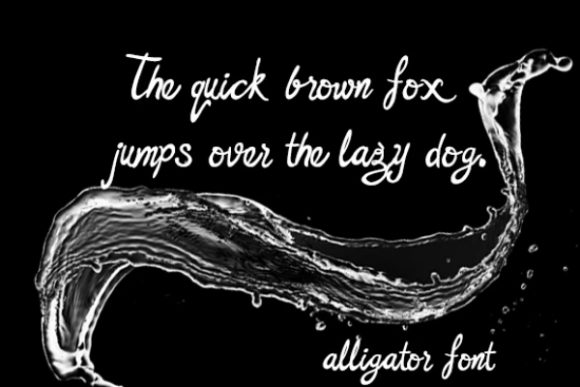
Introducing Alligator Font: The Cute and Modern Handwritten Font for Creative Projects
Are you a designer, crafter, or DIY enthusiast looking for a font that can add a touch of personality and friendliness to your creative projects? Look no further than Alligator Font! This modern handwritten font is designed to bring a sense of approachability and warmth to your designs, making it perfect for a wide range of applications, from social media graphics to calligraphy scripts.
The Features of Alligator Font
Alligator Font is a beautifully crafted font that boasts an incredibly friendly feel. Its gorgeous swashes and ligatures make it incredibly versatile, allowing you to use it for a variety of creative projects. Whether you’re looking to create stunning Instagram graphics, elegant calligraphy scripts, or eye-catching DIY projects, Alligator Font is the perfect choice.
One of the standout features of Alligator Font is its gorgeous swashes. These elegant flourishes add a touch of sophistication and elegance to your designs, making them perfect for projects that require a bit of extra flair. Additionally, the font features a range of ligatures, which allow you to create beautiful connections between letters and add a touch of whimsy to your designs.
What Makes Alligator Font So Versatile?
Alligator Font is an incredibly versatile font that can be used for a wide range of creative projects. Its modern and handwritten feel makes it perfect for:
- Social media graphics: Add a touch of personality to your Instagram graphics, Facebook posts, and Twitter updates with Alligator Font.
- Calligraphy scripts: Create beautiful calligraphy scripts for DIY projects, such as wedding invitations, greeting cards, and gift tags.
- DIY projects: Use Alligator Font to add a personal touch to your DIY projects, such as crafts, scrapbooking, and paper crafting.
- Branding and marketing: Use Alligator Font to create a friendly and approachable brand identity for your business.
Why Choose Alligator Font?
So why choose Alligator Font for your creative projects? Here are just a few reasons:
- Unique and modern design: Alligator Font features a unique and modern design that’s sure to stand out from the crowd.
- Easy to read: Despite its elegant and cursive feel, Alligator Font is incredibly easy to read, making it perfect for body text and headlines.
- Highly versatile: Alligator Font can be used for a wide range of creative projects, from social media graphics to calligraphy scripts.
- Incredibly friendly feel: Alligator Font has an incredibly friendly feel that’s sure to add a touch of warmth and approachability to your designs.
Tips for Using Alligator Font
Here are a few tips for using Alligator Font in your creative projects:
- Experiment with different sizes: Alligator Font looks great in a variety of sizes, from large headlines to smaller body text.
- Play with swashes and ligatures: Don’t be afraid to experiment with the font’s gorgeous swashes and ligatures to add a touch of elegance and whimsy to your designs.
- Pair with other fonts: Alligator Font pairs beautifully with other fonts, so don’t be afraid to experiment with different font combinations.
| Font Name | Alligator Font |
| Author | carina2 |
In conclusion, Alligator Font is a beautiful and versatile font that’s perfect for designers, crafters, and DIY enthusiasts. Its modern and handwritten feel, gorgeous swashes and ligatures, and incredibly friendly feel make it perfect for a wide range of creative projects. Whether you’re looking to create stunning social media graphics, elegant calligraphy scripts, or eye-catching DIY projects, Alligator Font is the perfect choice.